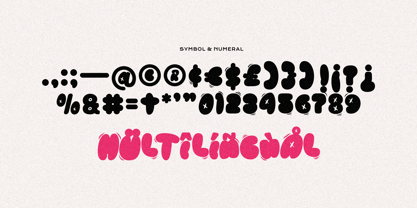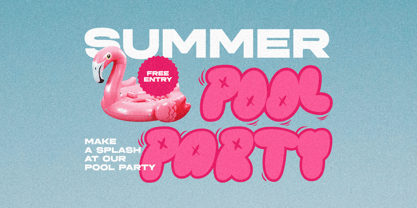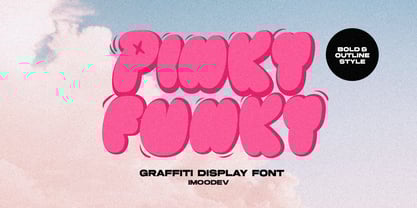
Pinky Funky
Pinky funky is a graffiti-style display font with rounded, inflated, and puffy letters, giving it a 3D effect reminiscent of early 2000s street fashion and graffiti art.
The irregular shapes and informal structure contribute to its street-style authenticity. This font two distinct variations: regular style and outline style.
With its fun and energetic vibe, this font is perfect for street art, posters, youthful and creative designs, as well as Y2K and retro aesthetics. It is especially well-suited for streetwear branding, music, pop culture merchandise, and other urban-themed designs.
Features:
• Uppercase and Lowercase
• Punctuation, Alternates and, Ligatures
• Number and Symbol
• Multilingual Support
• Opentype Features